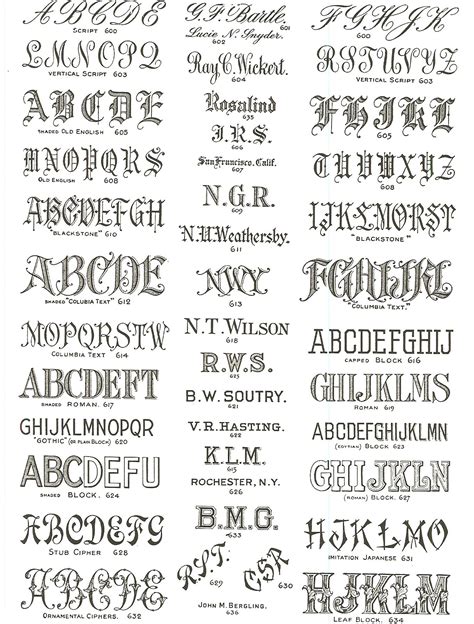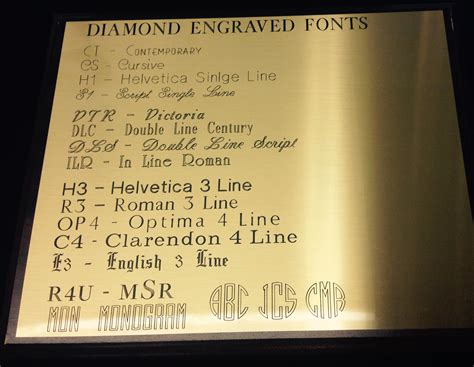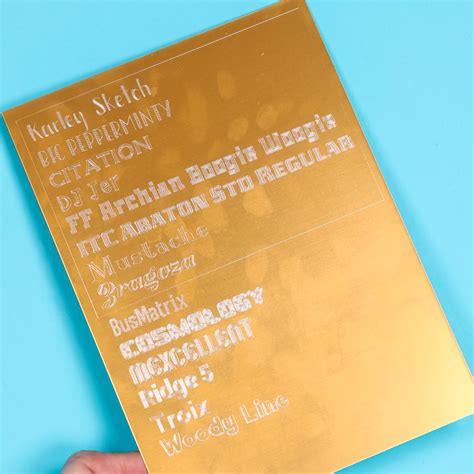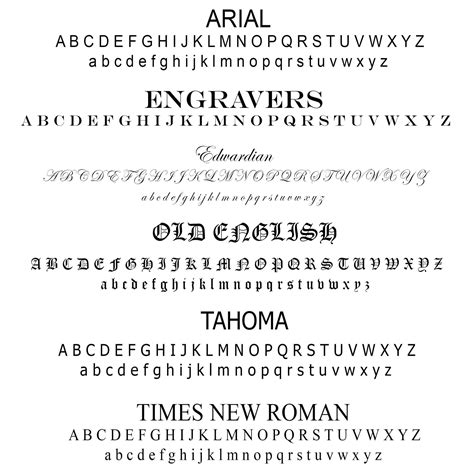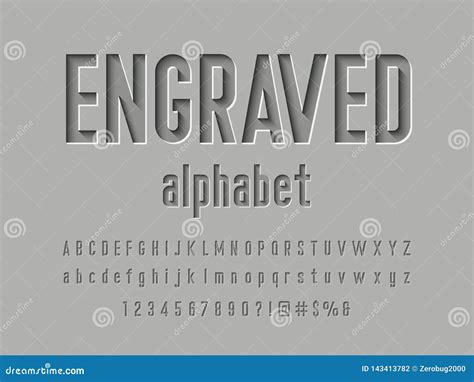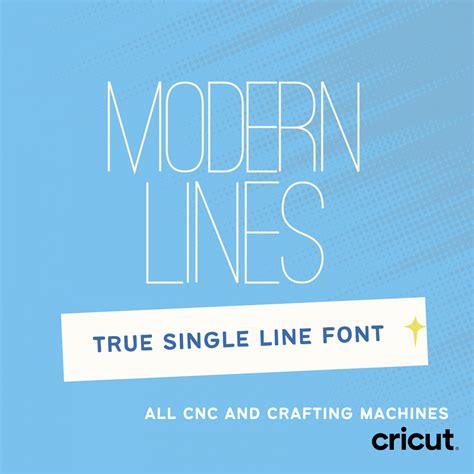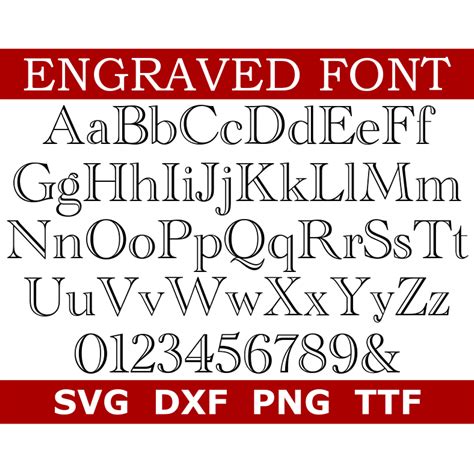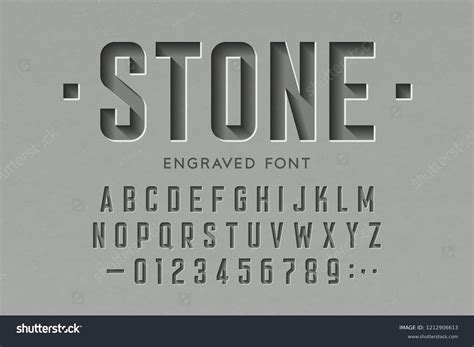
Selecting the nonsuch typeface for inscribe is a critical conclusion that bridges the gap between digital pattern and physical artistry. Whether you are personalizing jewelry, etching metal signage, or customizing wooden keepsakes, the case you prefer determines not solely the aesthetic appeal but also the structural unity of the net part. Because engraving tools - whether laser, rotary, or hand-chiseled - interact with cloth in specific shipway, standard fonts often postulate measured consideration. A case that looks hone on a high-resolution screen may result in messy, unreadable output if the strokes are too slender or the kerning is too taut for the physical bit to sail. Understand the subtlety of line weight, terminal shapes, and spacing is all-important for achieving a professional refinement that reward the material being worked upon.
The Physics of Engraving and Typography
Engraving is fundamentally a subtractive summons. Unlike printing, where ink is applied to a surface, inscribe remove stuff to make depth, apparition, and permanent markings. This mechanical difference means that the geometric place of your elect engrave composition must aline with the physical limitations of your equipment.
Single-Line vs. Double-Line Fonts
Most commercial typeface are designed as "scheme" fonts. When a laser or CNC machine interprets these, it follows the perimeter of each missive, which can lead to wasted time and unwanted thickness. For effective mechanical etching, designers often choose:
- Single-line font (stick fonts): These are composed of elementary vector path. The engraving bit follows the line just once, which is unbelievably fast and produces sharp results on frail surface.
- Outline typeface: These create a hollow, bubble-like effect. They are excellent for big signage where you want to occupy the interior of the letter with a cross-hatch or texture.
Material Considerations
The substratum plays a major role in font choice. Soft fabric like wood or acrylic forgive wider, bolder strokes, while difficult metals like stainless blade require fonts with open counters and round terminus to forefend "chip" or tool breaking during the path transition.
Best Font Categories for Engraving
Not every typeface is suited for the accent of engraving. Below is a breakdown of styles that traditionally do easily under the cutter.
| Font Style | Best Use Case | Key Characteristic |
| Serif (Classic) | Trophy, Memorials | Eminent readability, timeless elegance |
| Sans-Serif | Industrial Labels | Clean, geometric, lasting |
| Book | Jewelry, Gifts | Course, personal, requires depth |
The Importance of "Open" Counters
When selecting a font, look at the "counter" - the empty space inside letters like' O ', ' A ', ' e ', and' g '. If a fount has a very minor counter, the etch creature may bridge the gap, causing the interior of the letter to be lose or turn illegible. In etching, generous counter are your best ally, as they insure clarity yet when the textbook size is significantly cut.
Technical Tips for Optimal Results
Formulation is half the engagement. Simply opt a beautiful typeface is rarely decent to undertake a clean cut. You must also regard the next proficient adjustments:
- Kern: Increase the letter space slimly. Incised letters run to "bleed" or visually expand into each other, so a small extra breathing way forestall a littered look.
- Line Weight: Avoid hairline weights. If the lines are too thin, they may vanish under fine-tune or finishing operation.
- Corner Radii: Sharp, 90-degree internal corners are difficult for orbitual scratch mo to sail. Choose fonts with rounded depot or soft angles whenever possible.
💡 Note: Always run a exam passing on fleck material that matches your final medium to verify how the typeface's stroke width behaves with your specific tool bit diameter.
The option of typography for engraving is a proportionality between aesthetic sight and mechanical reality. By prioritize fount that have open counters, sufficient spacing, and manageable geometry, you can eradicate the most mutual pitfalls of the trade. Whether you are create intricate custom-made jewelry or utilitarian industrial tag, the time spent assess your fibre itinerary will pay off in the quality and strength of the finished product. Proper planning regarding line weight and kern ensures that every lineament remains nippy, clean, and permanently etched into the material surface. Careful tending to these pattern principles allows for the successful execution of professional-grade engraving projects that defy the examination of time.